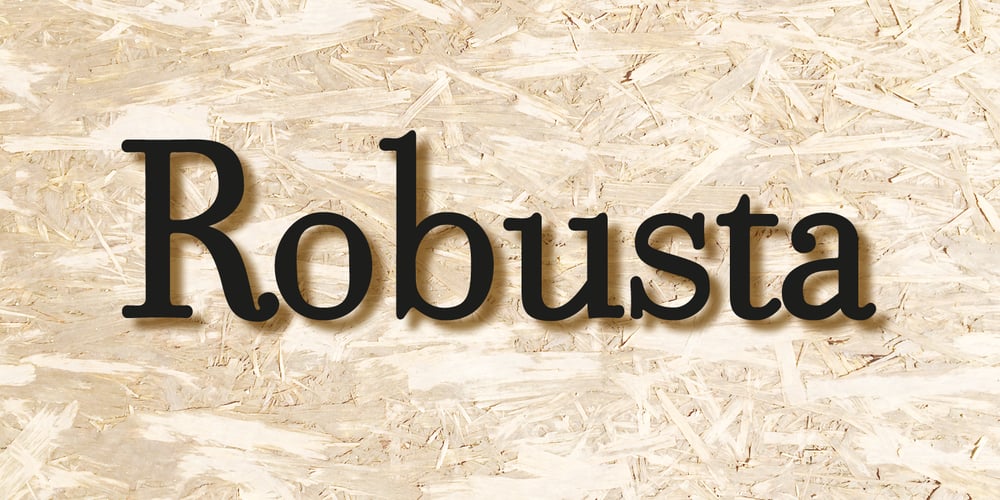
Robusta Font Family was designed by Gert Wiescher and published by Wiescher Design. Robusta contains 5 styles and family package options. Robusta is somehow more elegant than Courier and sturdier than Bodoni. Yours in an in-between mood, Gert Wiescher.